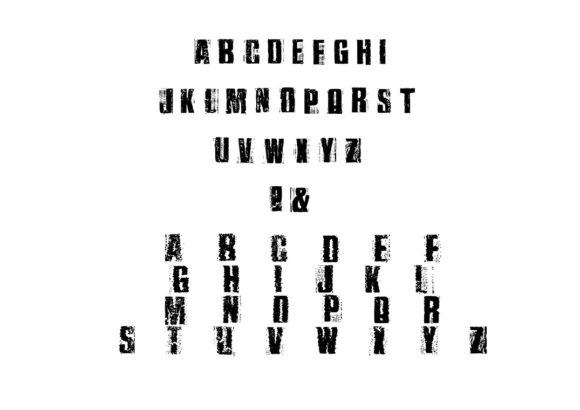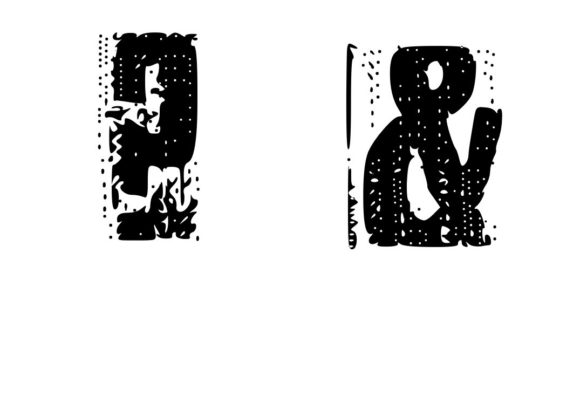
The Perfect Typography Punch: Unleashing the Power of Halftone Printer Font
As a designer, there’s nothing quite like that moment when an idea finally comes together. The rush of creativity, the thrill of experimentation, and the satisfaction of bringing a vision to life. For me, that moment often begins with the perfect font – one that packs personality, texture, and a whole lot of attitude. Enter the Halftone Printer Font, a game-changing upper case display font that’s about to become your new go-to for any project that needs a powerful type punch.
This versatile font is more than just a stylish addition to your designs – it’s a tool that can help you stand out from the crowd and make a lasting impression. With its bold typography and textured halftones, the Halftone Printer Font is a perfect fit for craft, design, and projects of all kinds. Whether you’re a seasoned pro or just starting out, this font is sure to bring a new level of excitement to your work.
Halftone Printer Font Key Features
- Unique Characteristics: The font features a distinctive halftone pattern, created by combining small dots to produce a range of shades and tones.
- Style Options: The font is available in both regular and bold styles, allowing designers to choose the perfect look for their project.
Halftone Printer Font Review
Overall, I’m impressed with the Halftone Printer Font, but it’s not without its flaws. Let’s dive into what works well and what doesn’t.
- Unique design aesthetic: The halftone-inspired design gives this font a distinct and eye-catching look.
- High-resolution output: When printed at high resolutions, the font looks crisp and detailed, just like a real halftone image.
- Great for distressed or vintage designs: The Halftone Printer Font is perfect for adding a worn, retro feel to your designs.
- Not ideal for body text: The font is a bit too ornate and busy for extended blocks of text.
- May not be suitable for digital use: While the font looks great in print, it can appear pixelated and rough in digital formats.
- Requires careful kerning: The font’s unique design makes kerning a bit tricky, so be prepared to spend some time tweaking letter spacing.
I’d recommend the Halftone Printer Font for designers who need a unique, eye-catching font for specific projects. While it has its limitations, the font’s distinct design aesthetic makes it a great addition to any design arsenal.
Use the Halftone Printer Font to create unique and eye-catching text effects.
Combine the font with other design elements, such as images or shapes, to create a cohesive look.
Experiment with different font sizes and styles to achieve the desired effect.
Use the Halftone Printer Font to create:
1. Retro-style posters and advertisements.
2. Vintage-inspired packaging and branding materials.
3. Unique and eye-catching social media graphics
1. News Gothic
News Gothic is a classic sans-serif font designed specifically for newspaper headlines. It’s ideal for use in titles, headings, and body text where a strong, bold appearance is desired. News Gothic is often used in conjunction with halftone images to create a vintage or retro look.
Compared to Halftone Printer Font, News Gothic has a more modern feel and is better suited for digital use. While both fonts can create a distressed or vintage look, News Gothic is more versatile and can be used in a wider range of design contexts.
2. Franklin Gothic
Franklin Gothic is a popular sans-serif font designed for use in newspaper and magazine headlines. It’s known for its strong, bold appearance and is often used in conjunction with halftone images to create a classic or vintage look.
Compared to Halftone Printer Font, Franklin Gothic has a more elegant and refined feel. While both fonts can create a distressed or vintage look, Franklin Gothic is better suited for use in more formal or high-end design contexts.
How do I prepare my design for printing with a Halftone Printer Font?
To ensure optimal results when printing with a Halftone Printer Font, it’s essential to prepare your design carefully. Use a vector graphics editor to create your design, and ensure